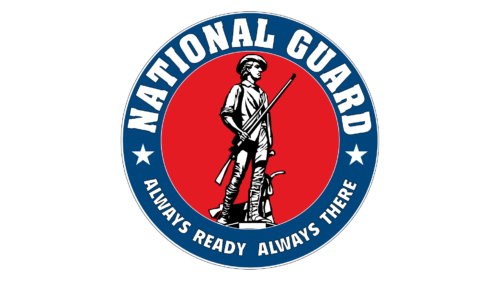
The National Guard is a versatile military force operating under both state and federal governments in the United States. It was established in Massachusetts, making it the oldest component of the Armed Forces. Created to fulfill dual roles, it provides states with trained units for emergencies and supports the national defense. Its inception was driven by the need for organized defense and community protection, evolving from colonial militias to a structured military reserve.
The National Guard, rooted in the early militia systems of the 17th century, was officially formed in 1636, marking the beginning of a state-based military force in the U.S. This establishment aimed to organize colonial defenses against threats. Over centuries, it evolved from local militias into a structured national reserve force, adapting to the nation’s changing defense needs. Its dual role, serving both state and federal duties, was solidified by the Militia Act of 1903, blending tradition with modern military demands.
The Guard has been pivotal in various historical moments, from domestic emergencies to overseas conflicts, embodying versatility and commitment.
Its story weaves through American history, reflecting the growth of a nation and its defense capabilities, continuously adapting to serve both community and country.
What is National Guard?
The National Guard stands as a multifaceted military force, intertwining state and federal responsibilities to form a cornerstone of America’s defense and emergency response framework. Born from the early militia systems of the 17th century, it has evolved into a dual-purpose entity, adept in handling both national defense missions abroad and crucial support during domestic crises, seamlessly embodying the spirit of community service and national duty.
National Guard Logo
This emblem features a stark red backdrop encircled by a blue ring with the bold inscription “NATIONAL GUARD”, affirming its identity. At its core stands a minuteman, the iconic symbol of readiness and historical valor, clutching a rifle — a nod to the Guard’s enduring legacy. The phrase “ALWAYS READY, ALWAYS THERE” encircles the figure, encapsulating the Guard’s perpetual commitment to duty and presence. White stars punctuate the blue, symbolizing unity and the high ideals upheld by the Guard.